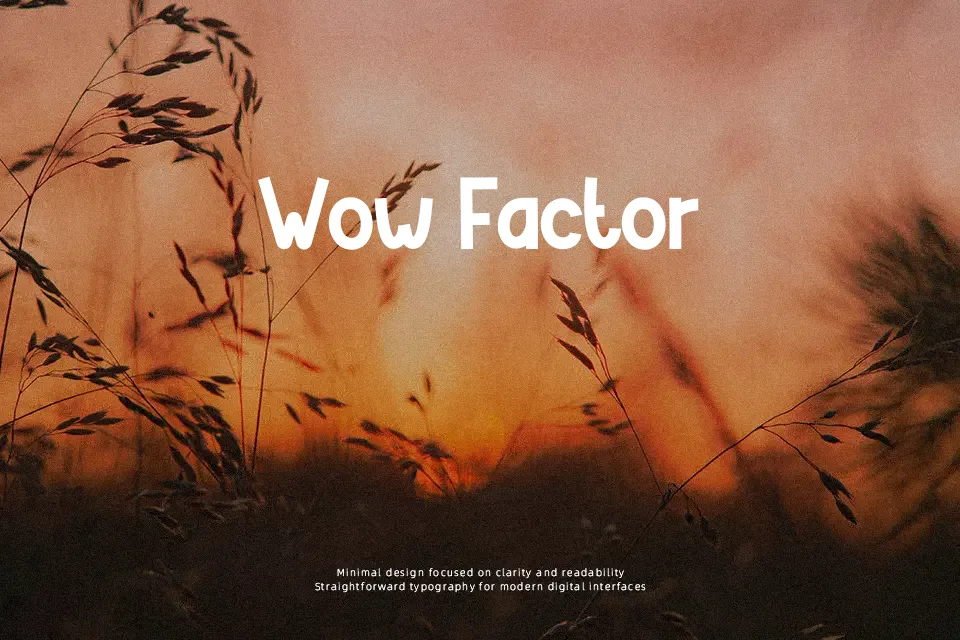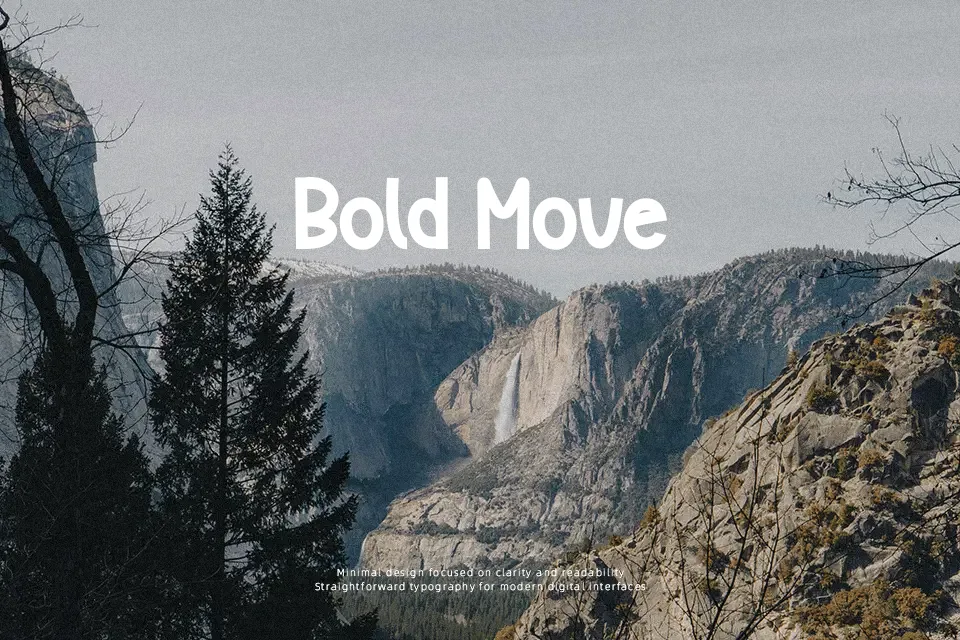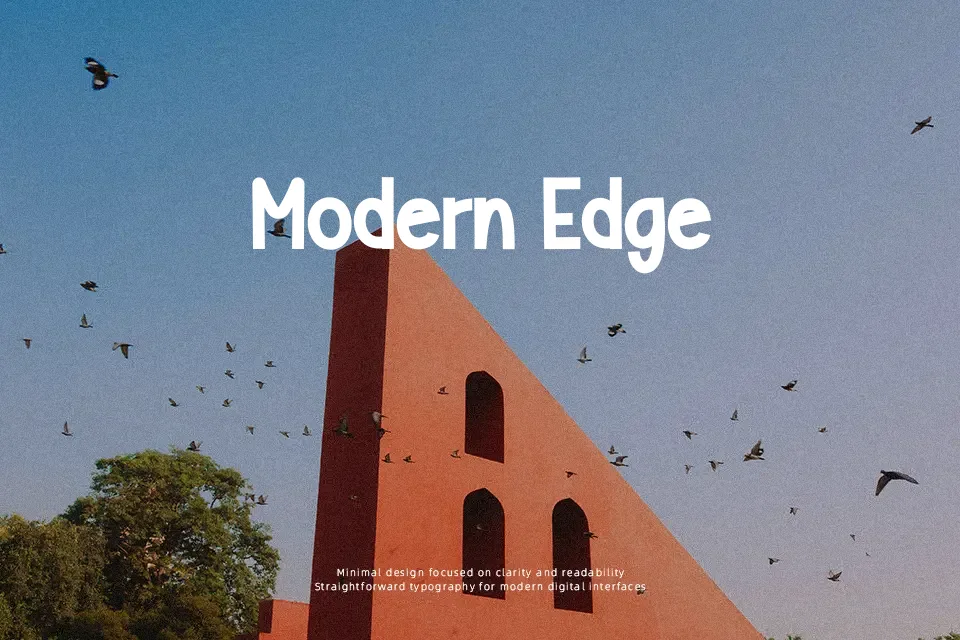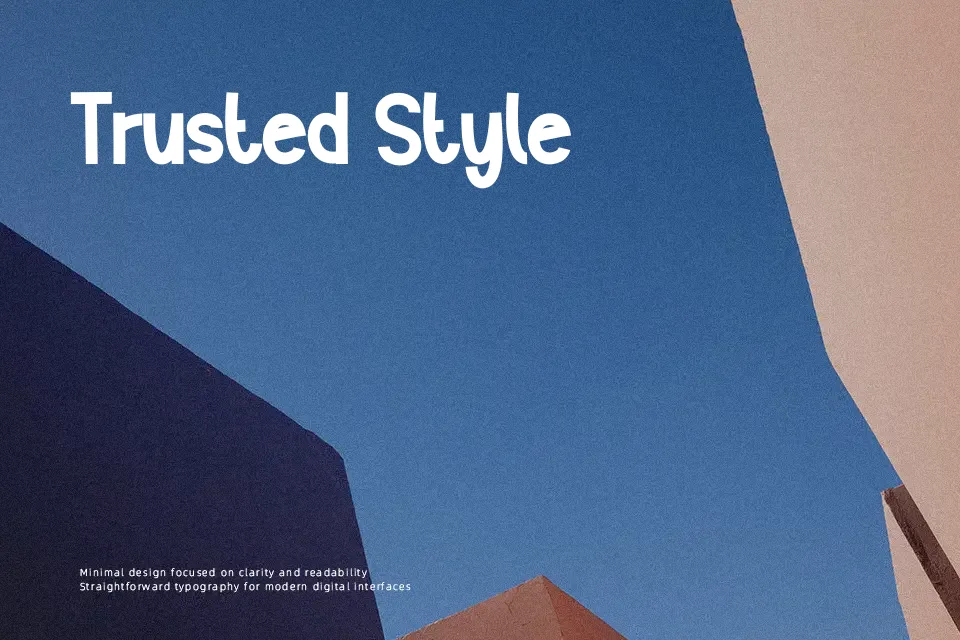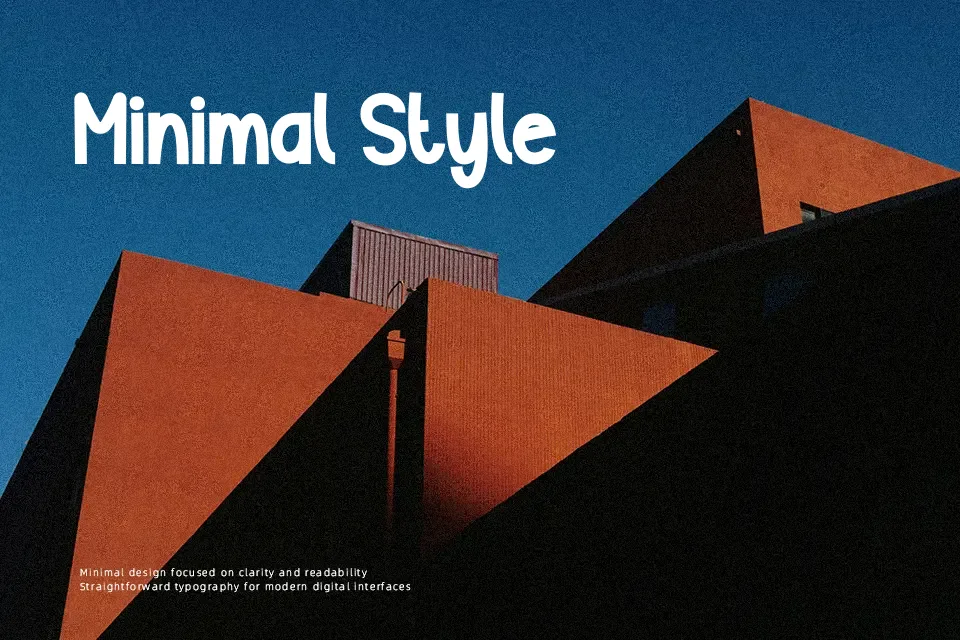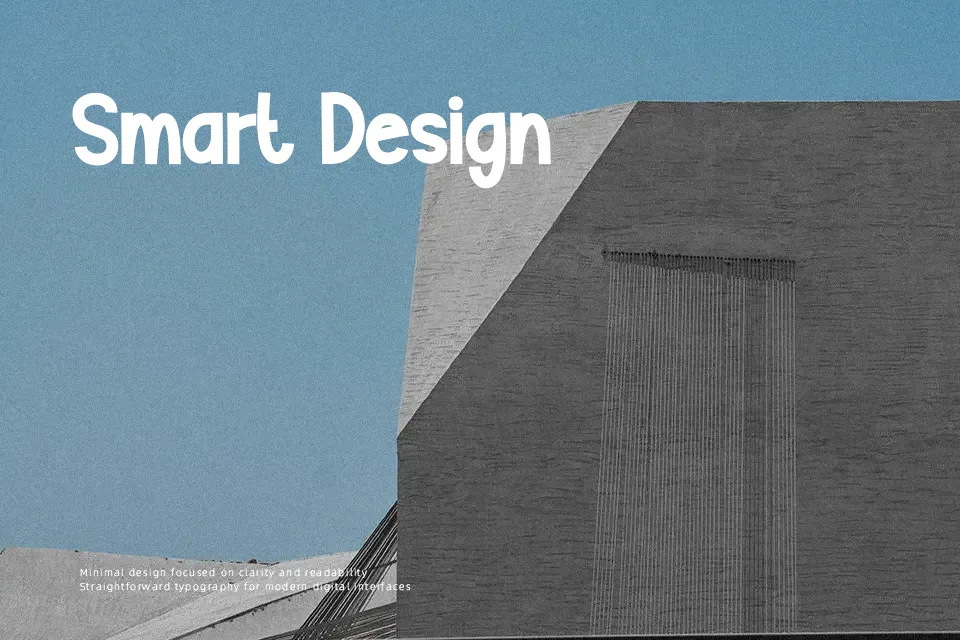
Snowy Beauty Font
Snowy Beauty Font works as a handwritten display face for short messages that need an informal, decorative presence. The letterforms use rounded, flowing strokes with varied contours rather than a rigid text structure, giving words a relaxed rhythm at larger sizes. Spacing appears most effective when set with room around the text, where the shapes remain easier to distinguish. It suits card fronts, invitation headings, and brief social graphics, but its expressive construction is less comfortable in long passages. The typeface reads best as a focal line rather than as supporting copy.
Best For: wedding invitation headings,greeting card titles,social media graphics,packaging labels
Perfect for headline, invitation, and packaging, with a creative and decorative style.